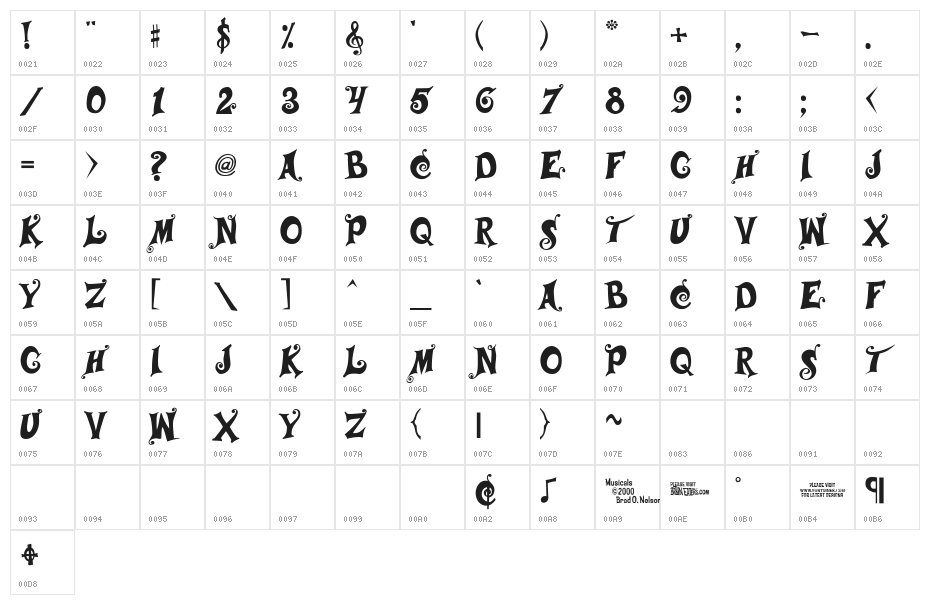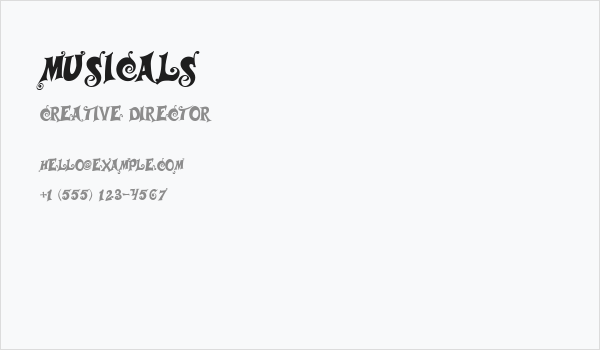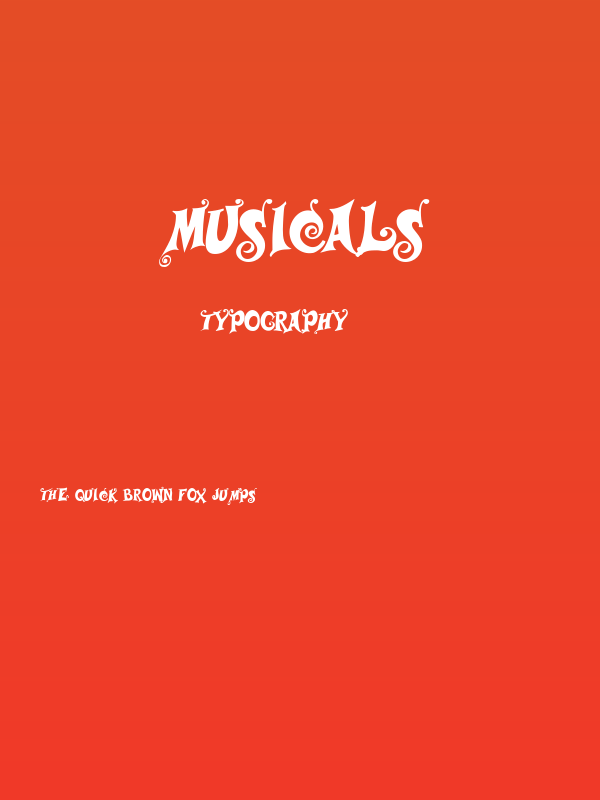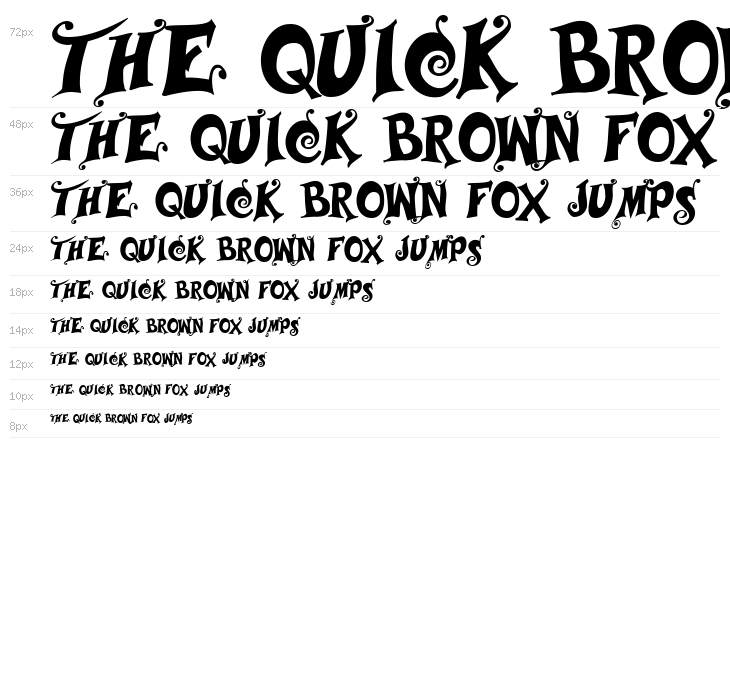
Musicals Font
Musicals Description
This font features a whimsical and playful design with exaggerated serifs and decorative swirls. Each character is bold and dynamic, capturing attention with its unique flair. The uppercase letters are particularly ornate, with curls and loops that add a sense of movement and creativity. The lowercase letters maintain this playful style, ensuring consistency throughout the typeface. Numbers and special characters are equally stylized, making this font suitable for eye-catching designs. The overall appearance is bold and artistic, making it ideal for projects that require a touch of fun and creativity.
| Proposed Projects | Ideal for posters, children's book covers, party invitations, and playful branding. |